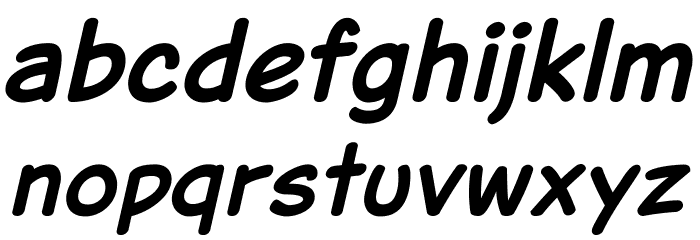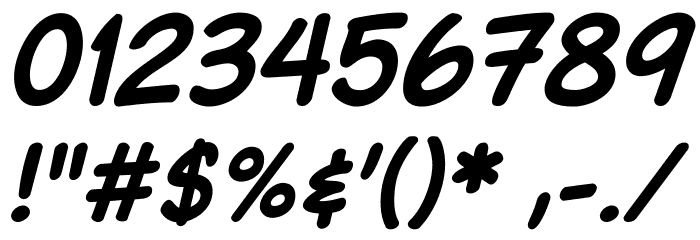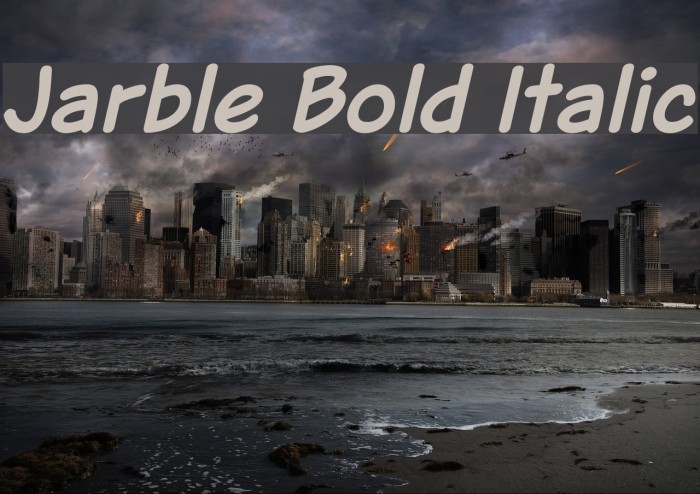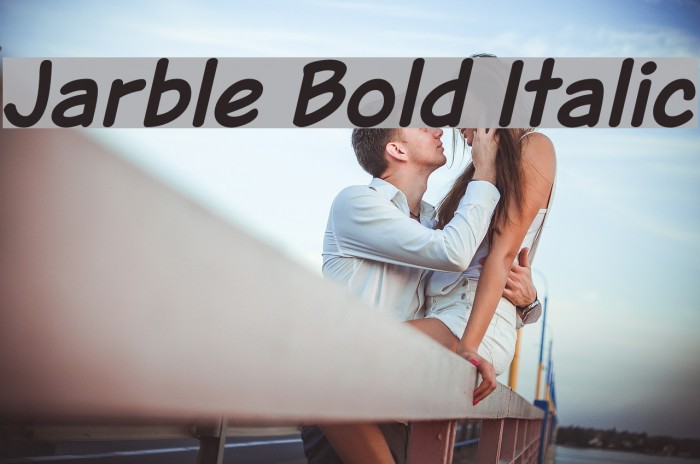
Jarble Bold Italic Font
This font features a bold and italicized style, characterized by its smooth, rounded edges and consistent stroke width. The letters are slightly slanted, giving a dynamic and energetic feel. The uppercase and lowercase letters maintain a uniform height, creating a cohesive look. Numbers and special characters are designed with the same boldness and slant, ensuring readability and consistency across different uses. The overall appearance is modern and playful, making it suitable for projects that require a friendly and approachable tone.
A bold, italicized font with smooth, rounded edges and a modern, playful style.
- Proposed Projects: Ideal for branding, advertising, children's books, and playful design projects.